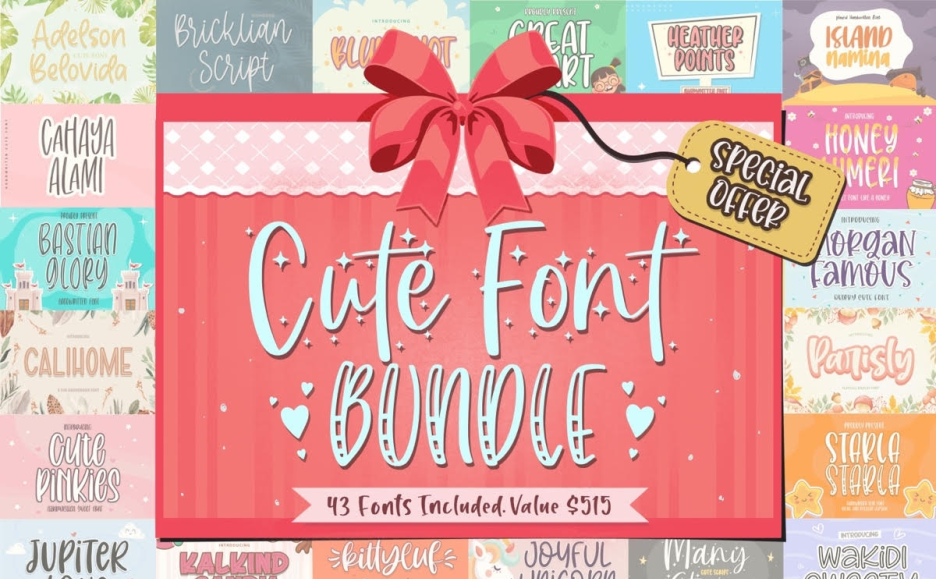
Introducing the Cute Fonts Bundle, a delightful collection of playful and charming typefaces perfect for a variety of creative projects. This bundle includes a diverse range of font styles, from whimsical scripts to bold display fonts, each designed to add a touch of personality to your designs.
- Multiple font styles: script, display, sans-serif, and more
- Various weights for versatility in design
- Use these fonts for branding projects to create a memorable identity.
- Incorporate them into your website design for a friendly and inviting look.
- Perfect for crafting personalized invitations and greeting cards.